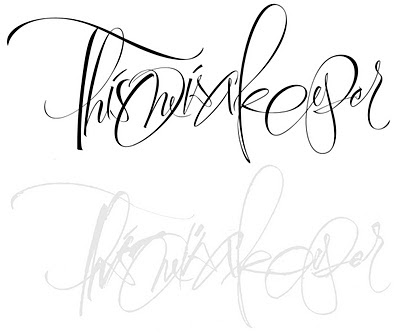
I wrote "This one is a keeper" a number of times trying to develop a good flow of letters. I scanned the inked lettering for template use and started with single lines which turned into outlines.
The shape and placement of the thicks and thins changed constantly while drawing in Illustrator. The final is quite different than the initial inked lettering. I just let the letterform shapes happen along the way in a natural manner.
ReplyDeleteAlan in some of your earlier posts you talked about doing wrist exercises. Would the 18 unused sketches be considered part of wrist exercises or are there specific movements you do that you find strengthen your talents? Great energy in this lettering!
ReplyDeleteA lot of this is trial and error in search of lettering which is readable. All my preliminary sketches are studies to learn how letterforms interact with one another. Just something I do before creating the refined lettering in Illustrator.